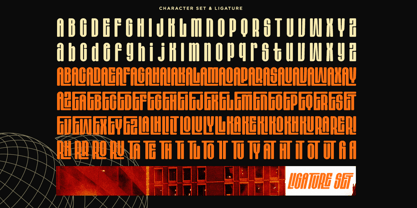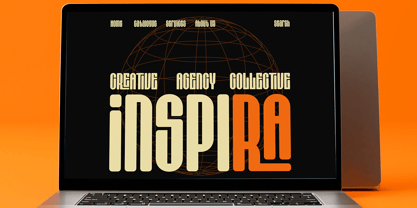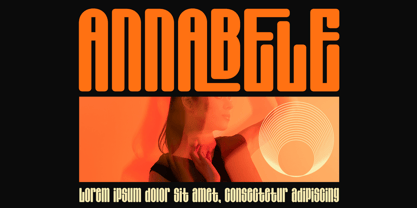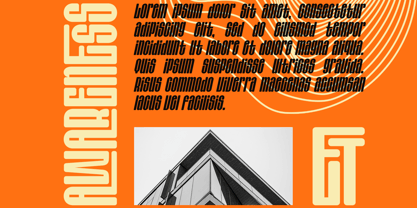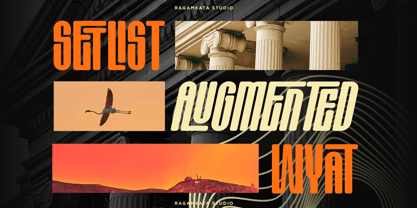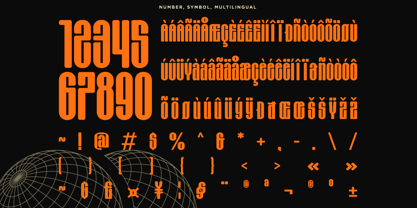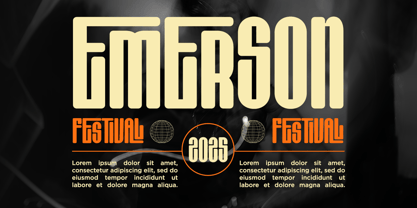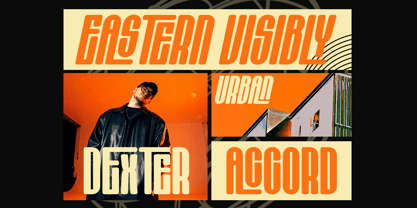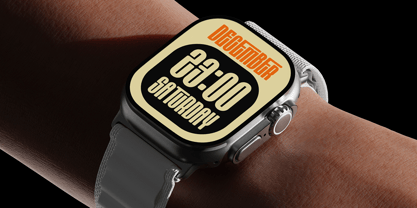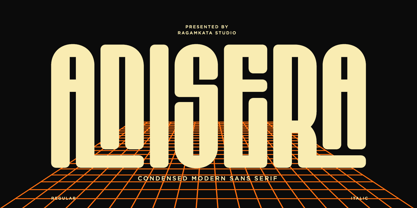
Anisera
La famille de polices Anisera a été conçue par Yogiswhara Dio Prakoso Riadi et publiée par RagamKata. Anisera contient 2 styles et options de package familial. En savoir plus sur cette famille
Anisera is a condensed decorative typeface that elevates modern typography to new heights. With its refined and contemporary aesthetic, Anisera seamlessly blends sophistication with practicality, offering an extensive selection of meticulously crafted ligatures. Designed to maximize space while maintaining clarity, Anisera's narrow structure is ideal for titles, branding, packaging, and digital layouts, providing a striking visual impact that captures attention and enhances any project.